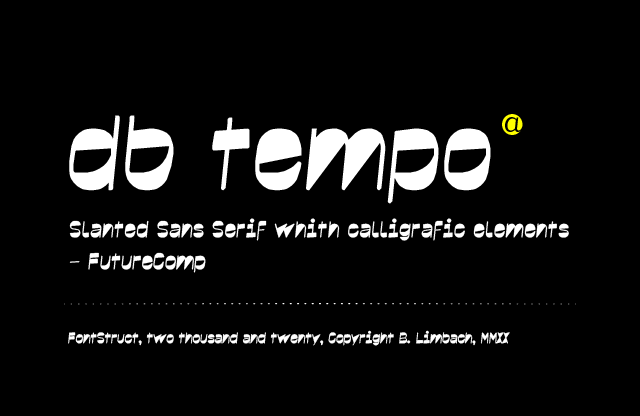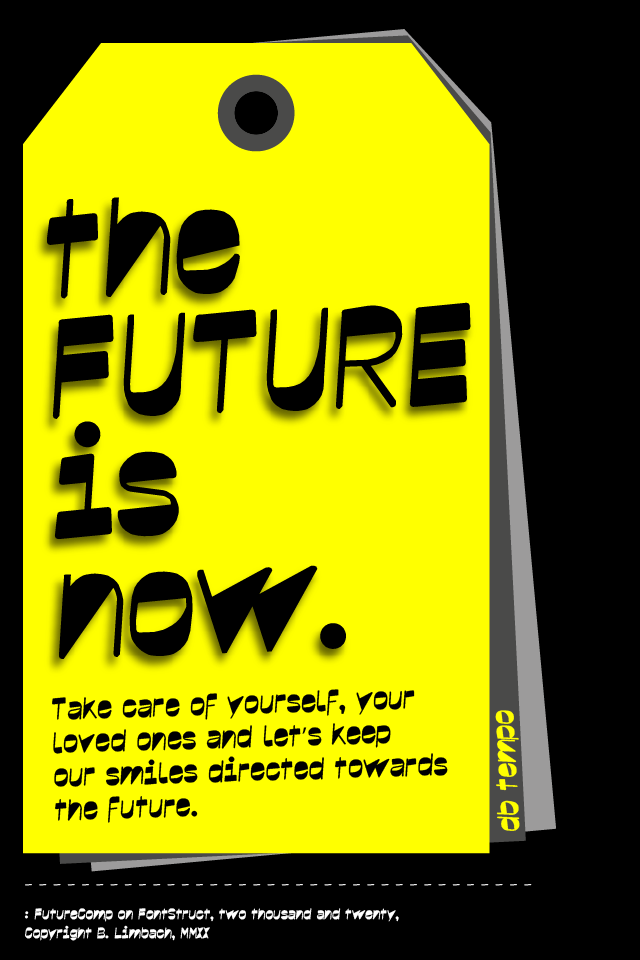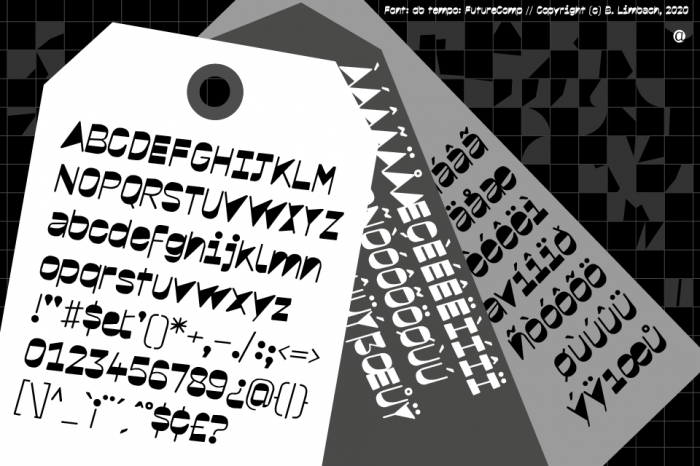
Beautiful!
Hmmm, delicious as usual, Maestra. Because there is nothing better than stirring the tempo with coffee... Instant favourite and sure winner.
NB: X overlaps some glyfs (A, B, E, K, L...), IMHO.
You're right, the kerning don't work.
I know... that's bad... with other glyphs (A, F, W, V, ...) the distance is too wide… It's a bit tricky ; ))
@beate - For some reason in the main viewing area above, there appears to be a stray brick either near the bottom right of W or near the bottom left of X; however, it disappears when I increase the font size slider past a certain point, and it doesn't show up for either letter in User Input, regardless of size... (Great design, BTW!)
Mystery solved: the extra brick belongs to the far left side of the a.
@elmoyenique - WOW.  That _IS_ far away from the W & X (!).  :^)
It is very interesting work with contrast, which directs the dynamics of letters in the opposite direction from the tilt. Very actual. Now it is your most fashionable and versatile font. I would rate it 100/10 if I could. I would very much like you to continue doing such experiments.
What a lovely little rocket you put at the end! ?
Beautiful work, wonderful how you often manage to give a handmade-quality to your grid-based fonts.
distinctively beate, and uniquely eclectic. i admire the solutions rendered for the gradually weighted diagonal strokes. i'm rarely concerned about problems with your work because it consistently comes out already hand sanitized and disinfected - without any injections whatsoever. ;-)
Congratulations! FontStruct Staff have deemed your FontStruction worthy of special mention. “db tempo” is now a Top Pick.
My congratulations, maestra!
Exotic display font playing with high contrast. The reference to future is vague, but it doesn't matter. It's a work of high quality with hallmarks of your style, Beate, all over it. Congratulations. You are one of the winners. 10/10
omg. i'm almost jealous on this one. Holy moly, i surely DID miss a lot happening here over time. Awesome beate
beate, you amaze me!